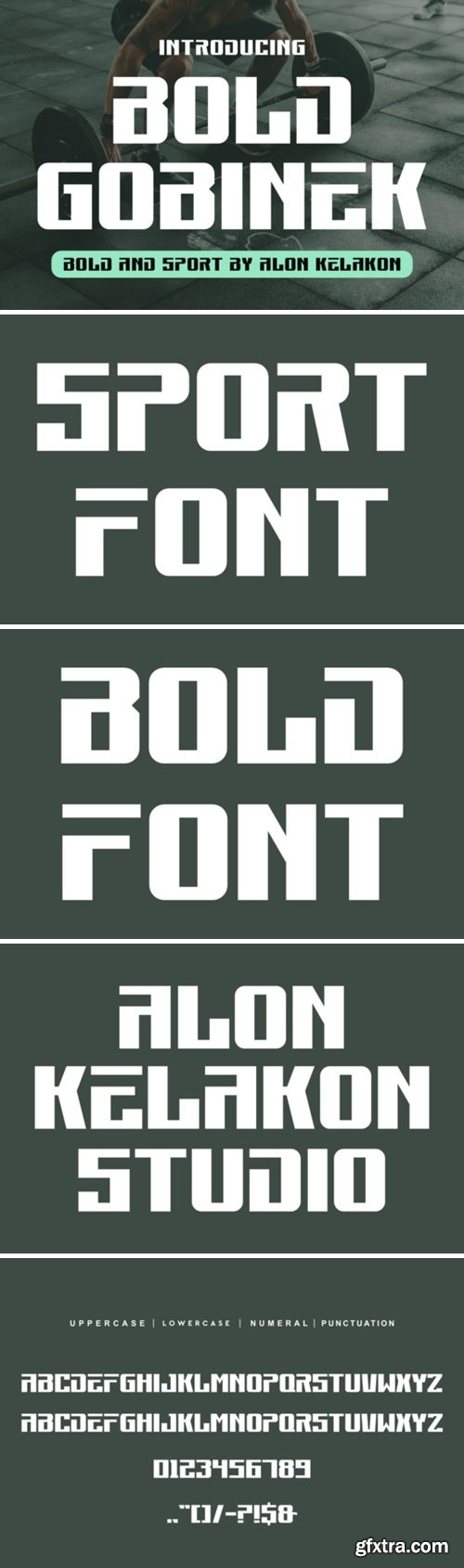
Bold Gobinek is a bold and assertive sans serif font. It is suitable for use on your invitations, social media, posters, menus, business cards and so much more.